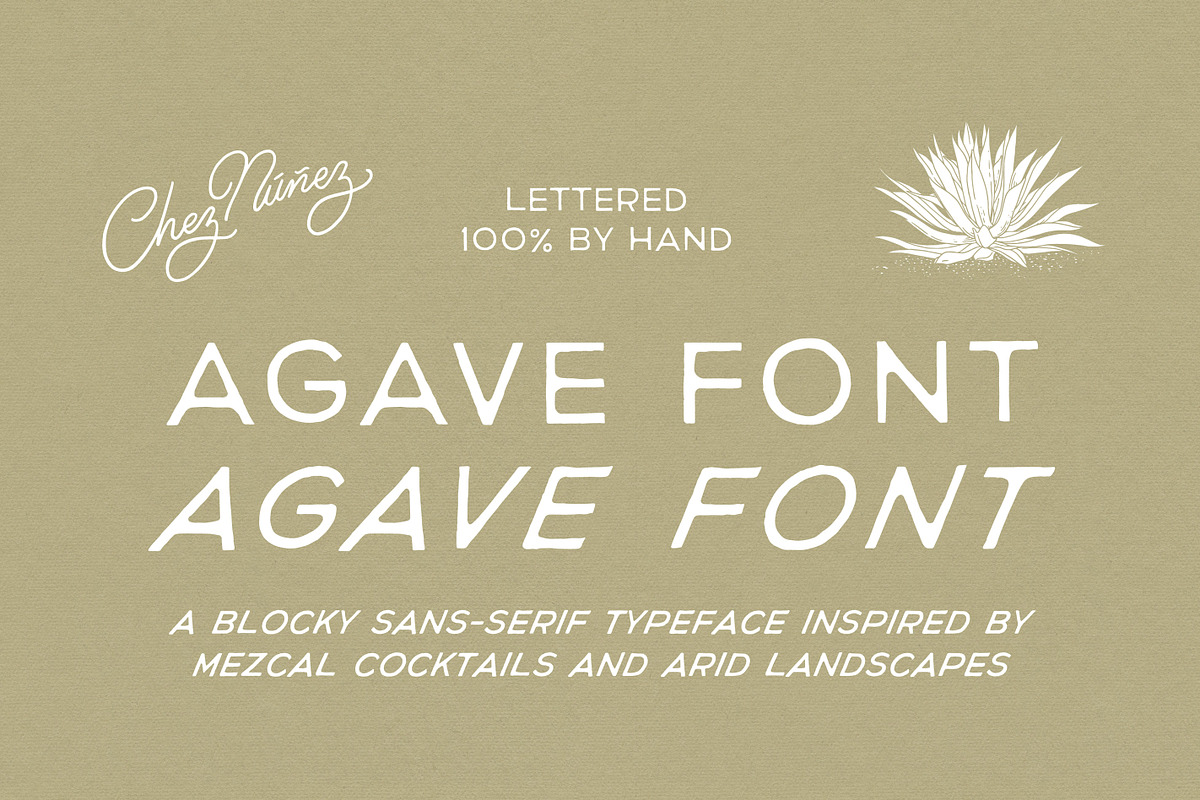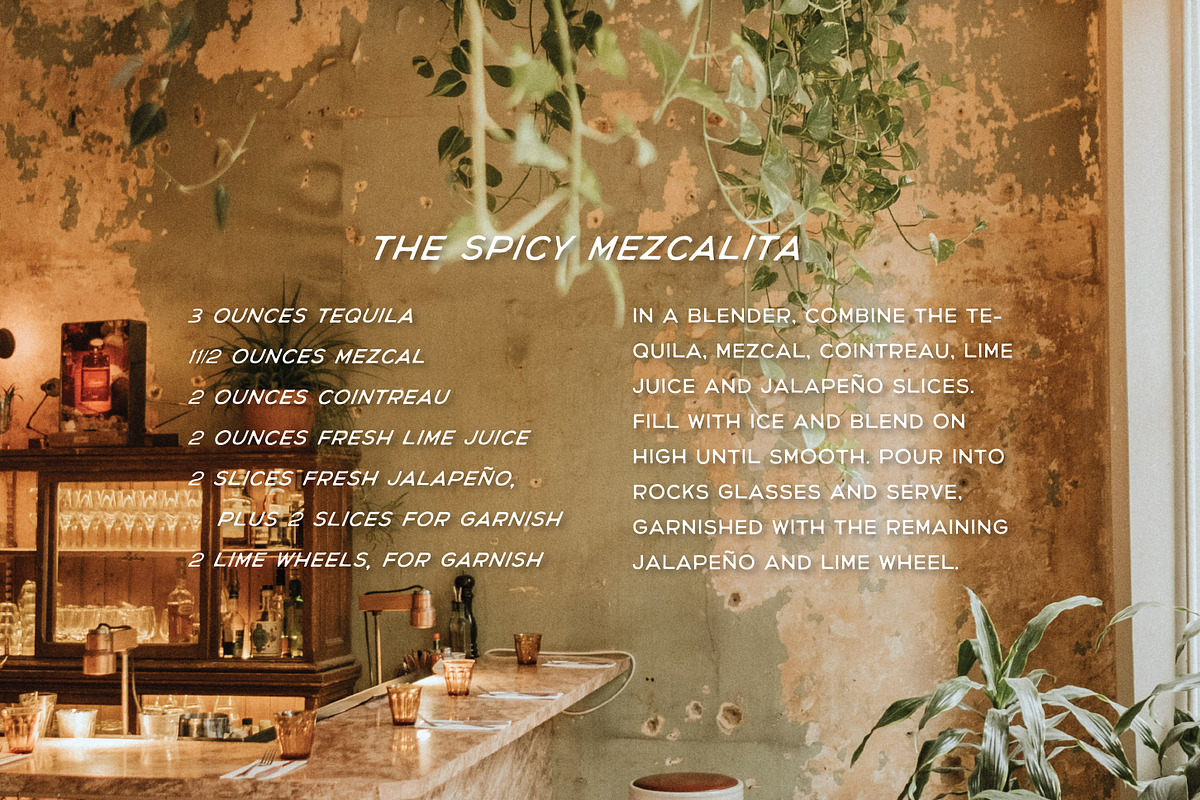
AGAVE: Blocky Mezcal San Serif
A blocky sans-serif typeface inspired by Mezcal cocktails and arid landscapes
- Standard Latin Characters + Numericals - lettered by hand, by Anna Núñez
- Punctuation, Mathematical Symbols, and Spanish accent marks - lettered by hand, by Anna Núñez
- 4 weights: REGULAR, ITALIC, BOLD, and BOLD ITALIC